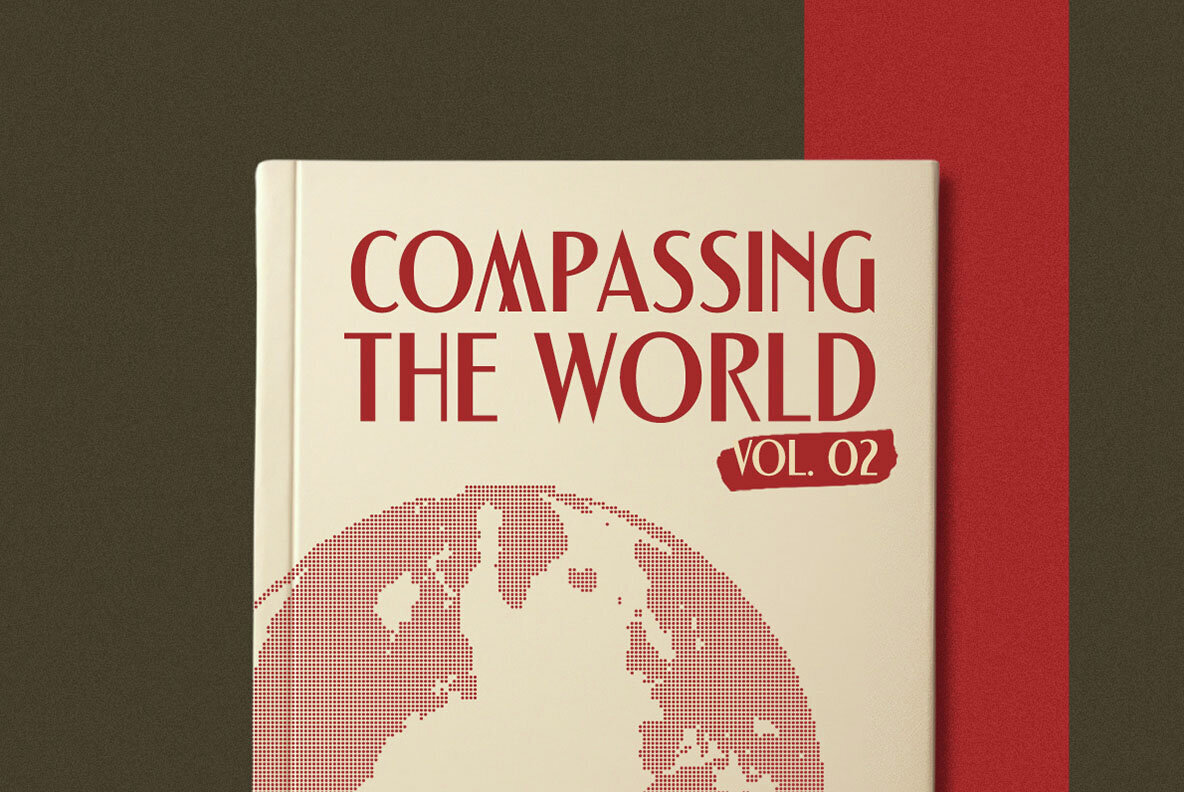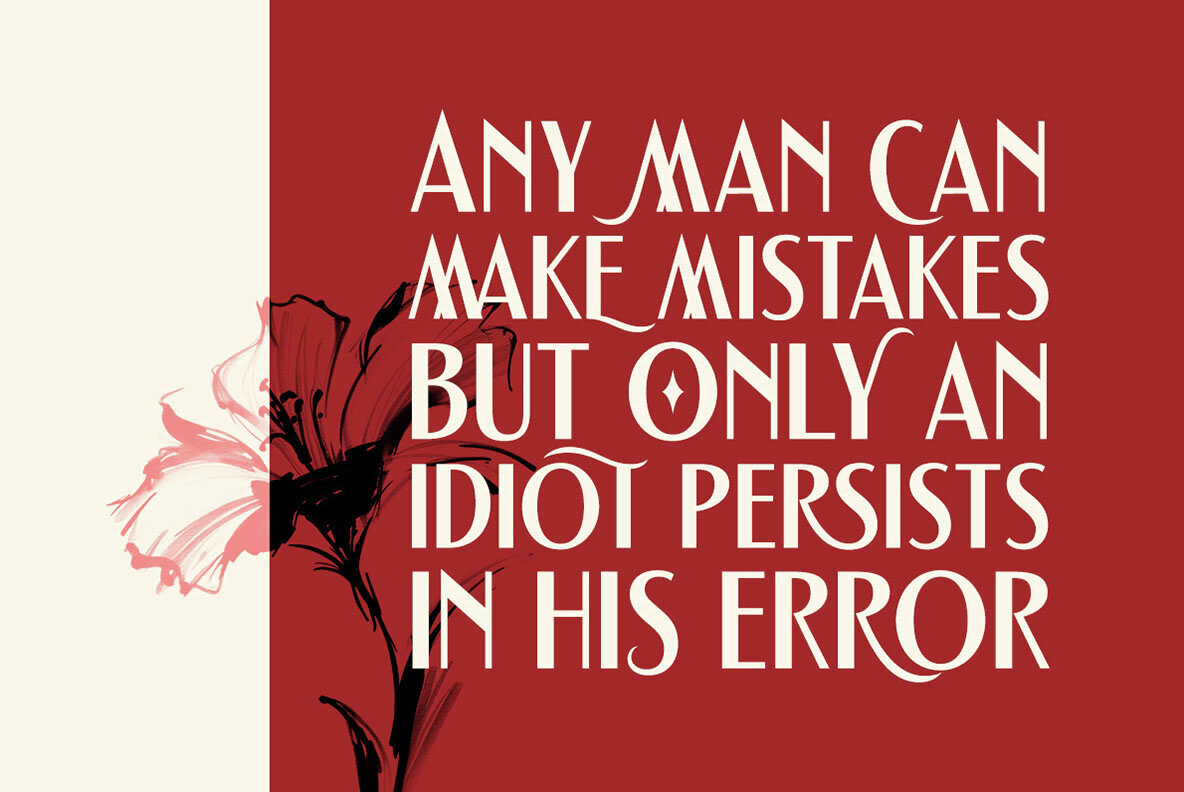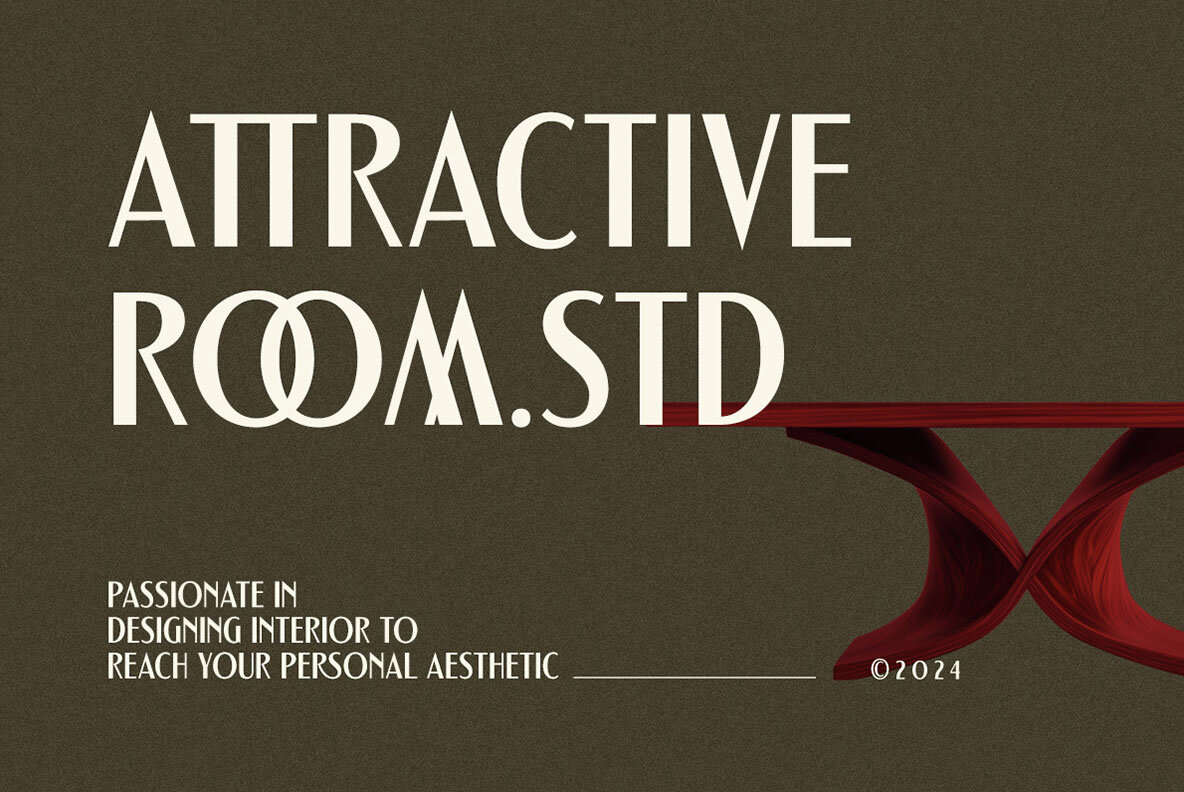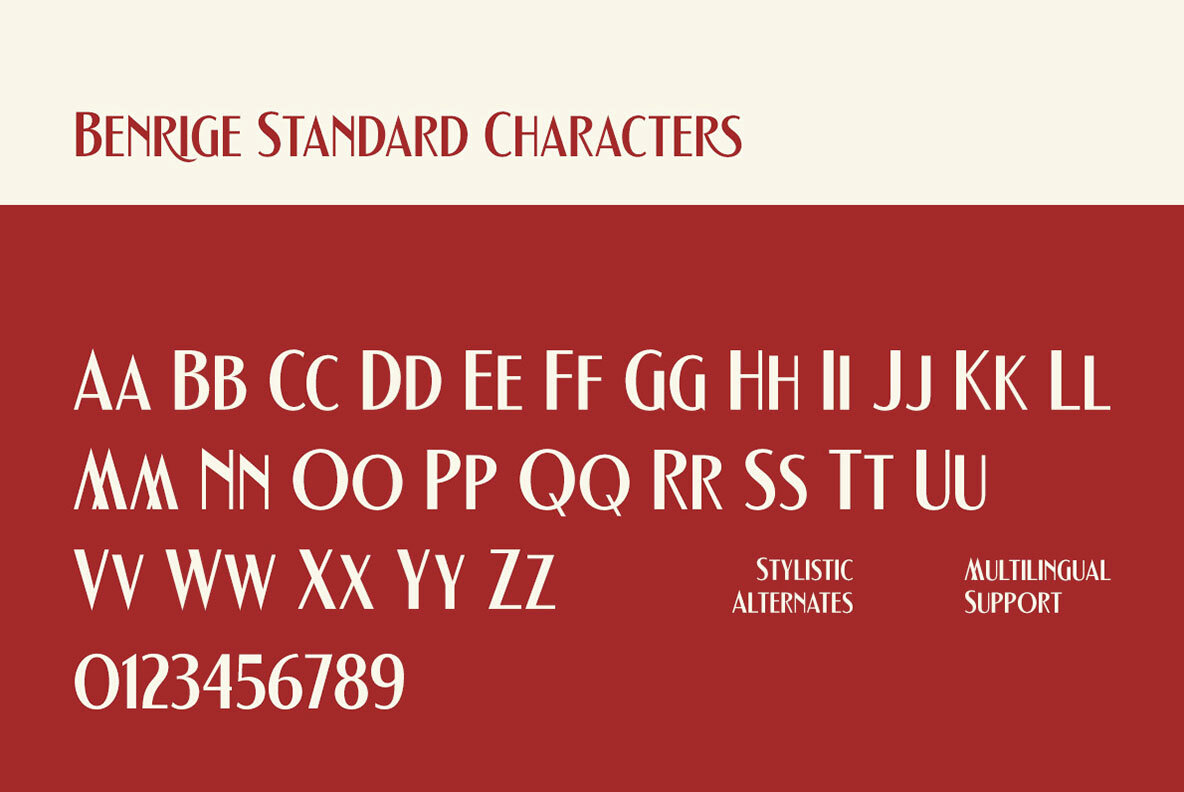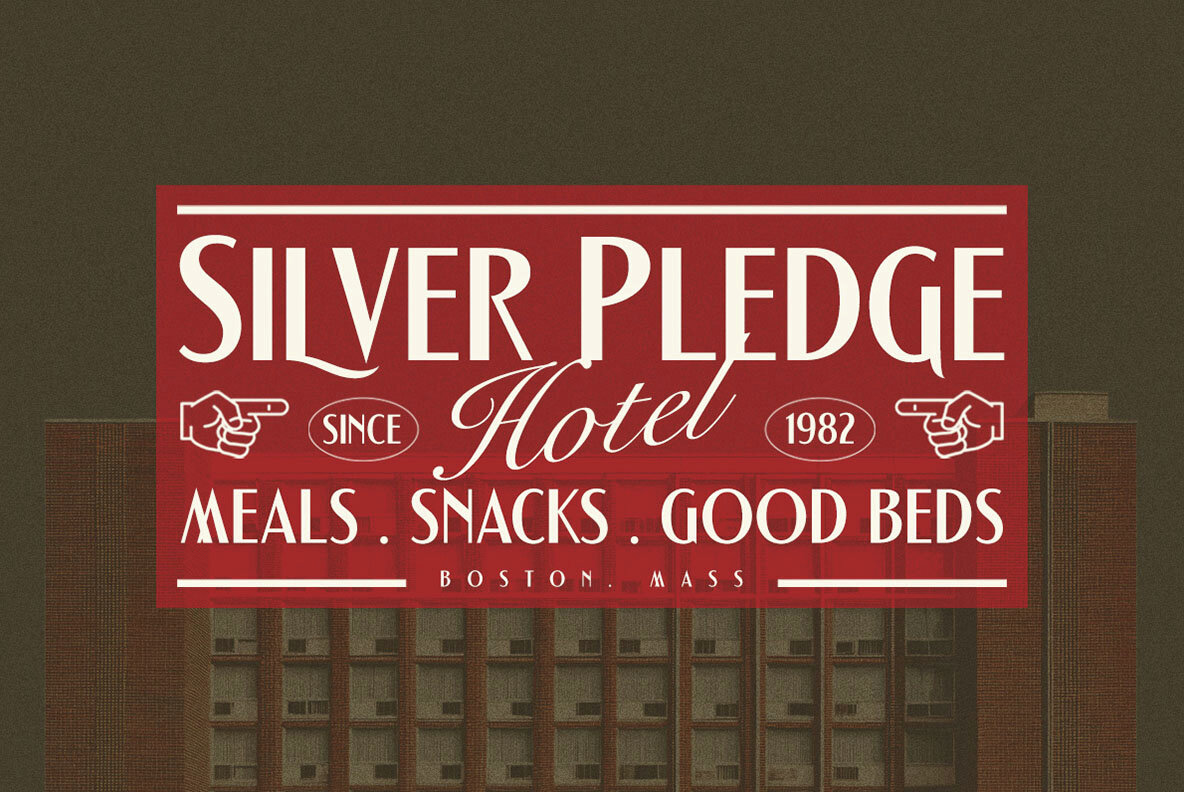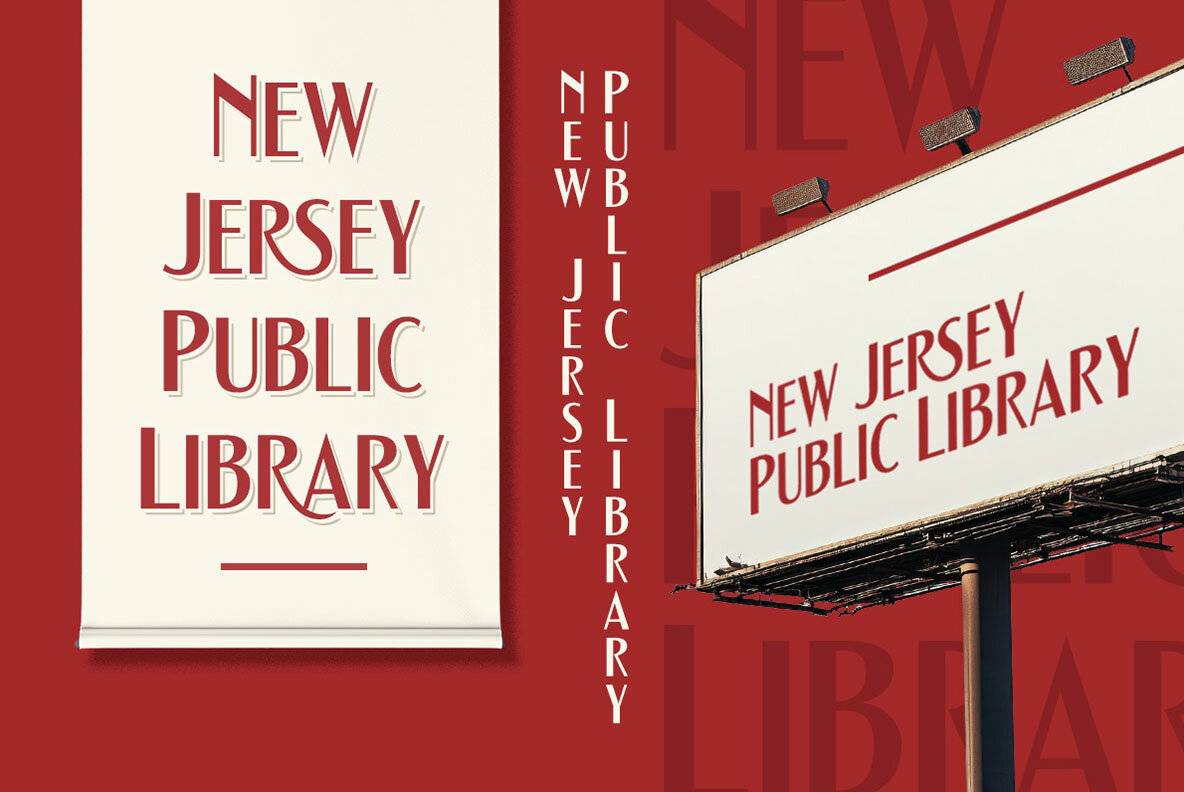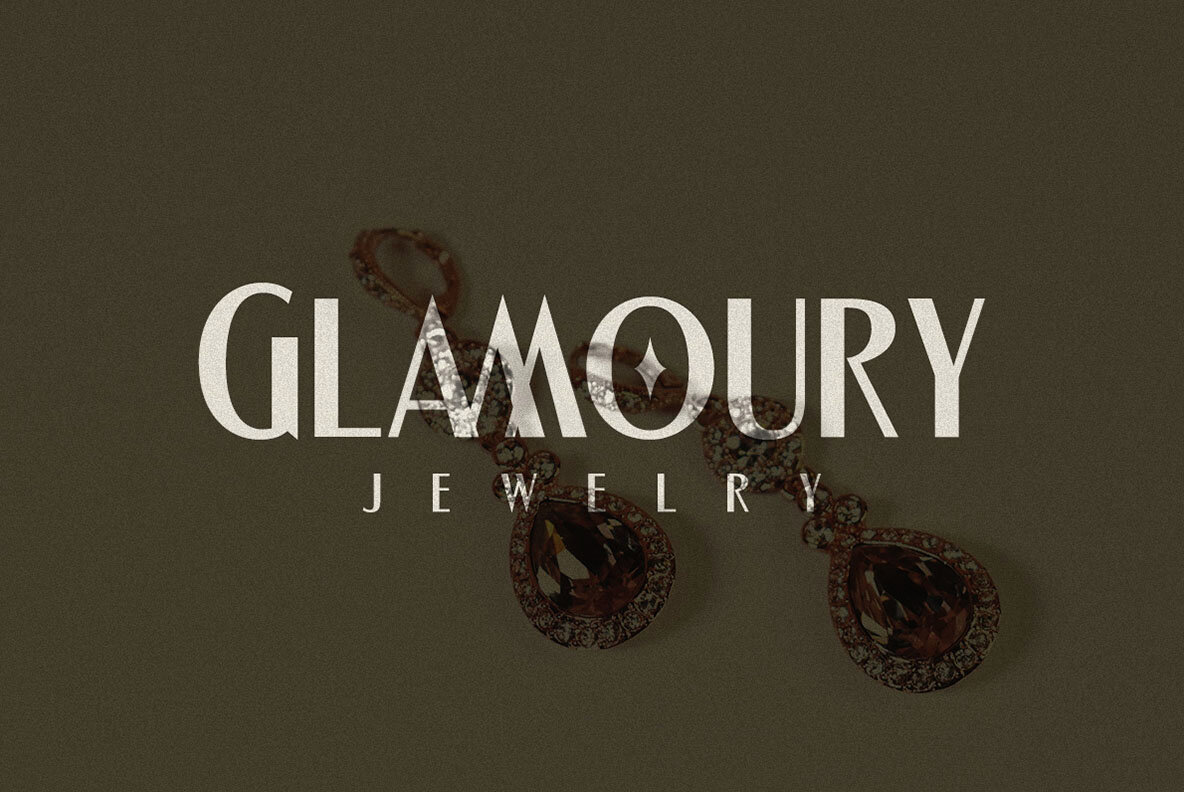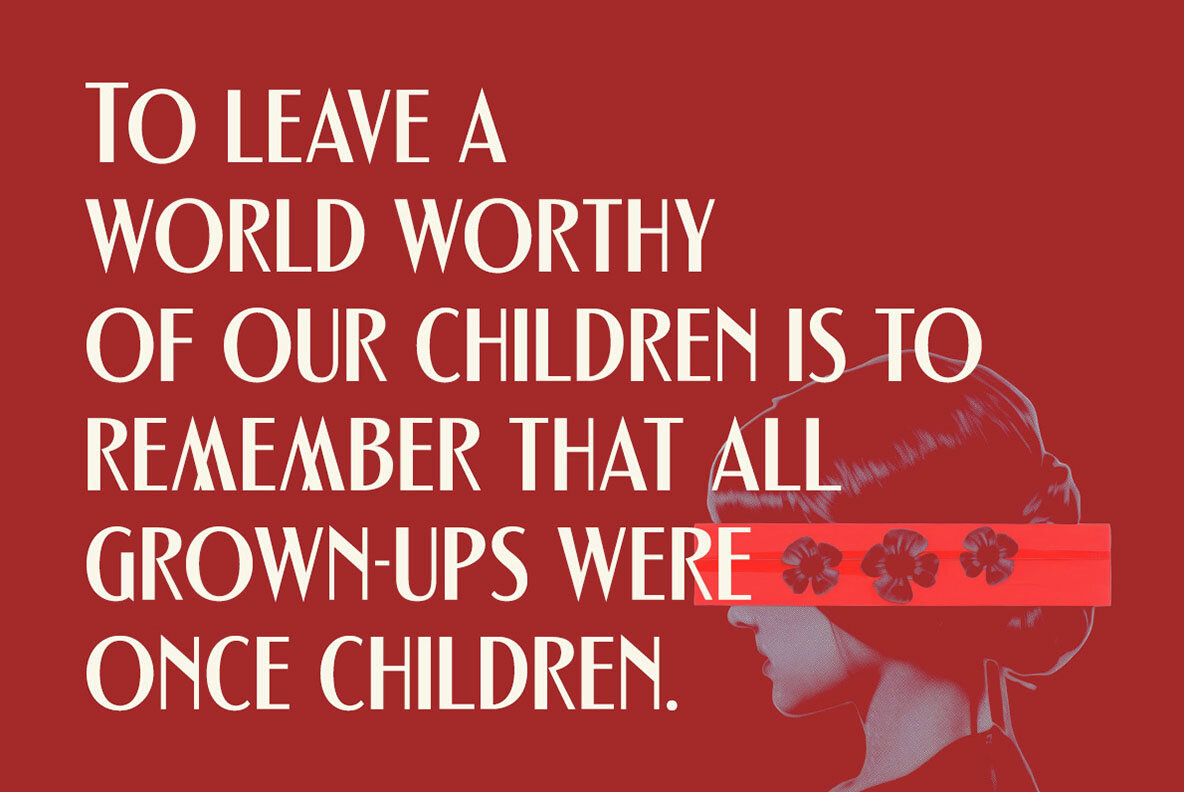
Benrige Font
Benrige Regular
The Benrige display font brings together the charm of vintage aesthetics with a modern flair, creating bold and stylish characters perfect for impactful headlines. Its elegance makes it ideal for branding and creative projects requiring a sophisticated touch. With a harmonious blend of classic and contemporary design elements, Benrige captures the eye and adds a unique personality to your work.